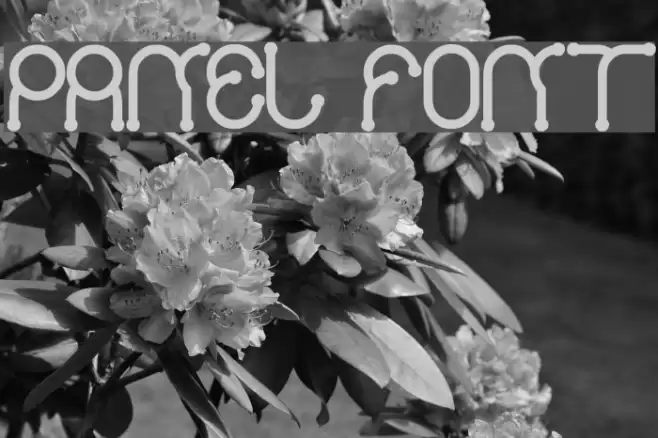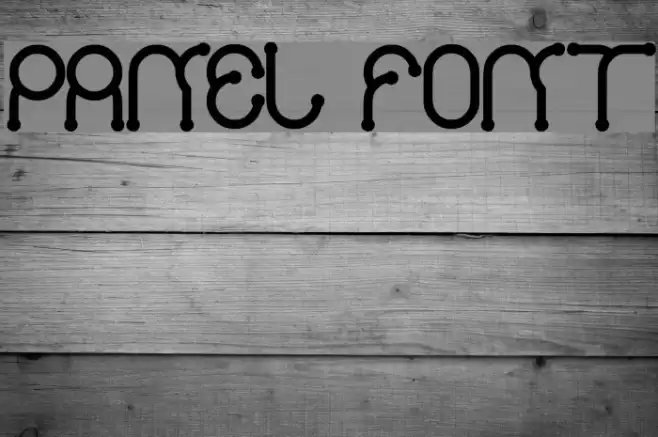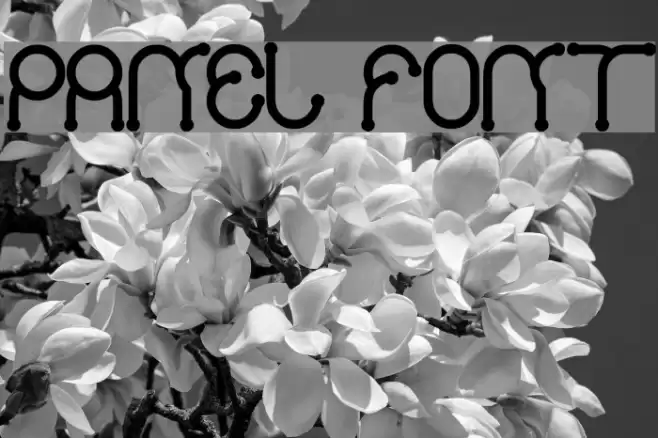
Panel Font
Panel Description
This font features a unique and playful design with rounded, bulbous terminals that create a whimsical and decorative appearance. The characters are interconnected with a consistent stroke width, giving it a cohesive and flowing look. The uppercase letters have a distinctive looped style, while the lowercase letters maintain a similar aesthetic with slight variations in form. The numbers and special characters follow the same playful theme, making the font suitable for creative and artistic projects. Its bold and rounded nature makes it stand out, while the consistent stroke width ensures readability.
A playful, decorative font with rounded terminals and consistent stroke width from Uncategorized fonts.
- Proposed Projects: Ideal for children's books, playful branding, creative posters, and artistic invitations.